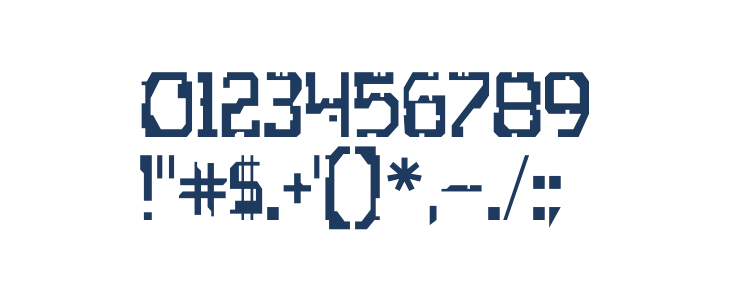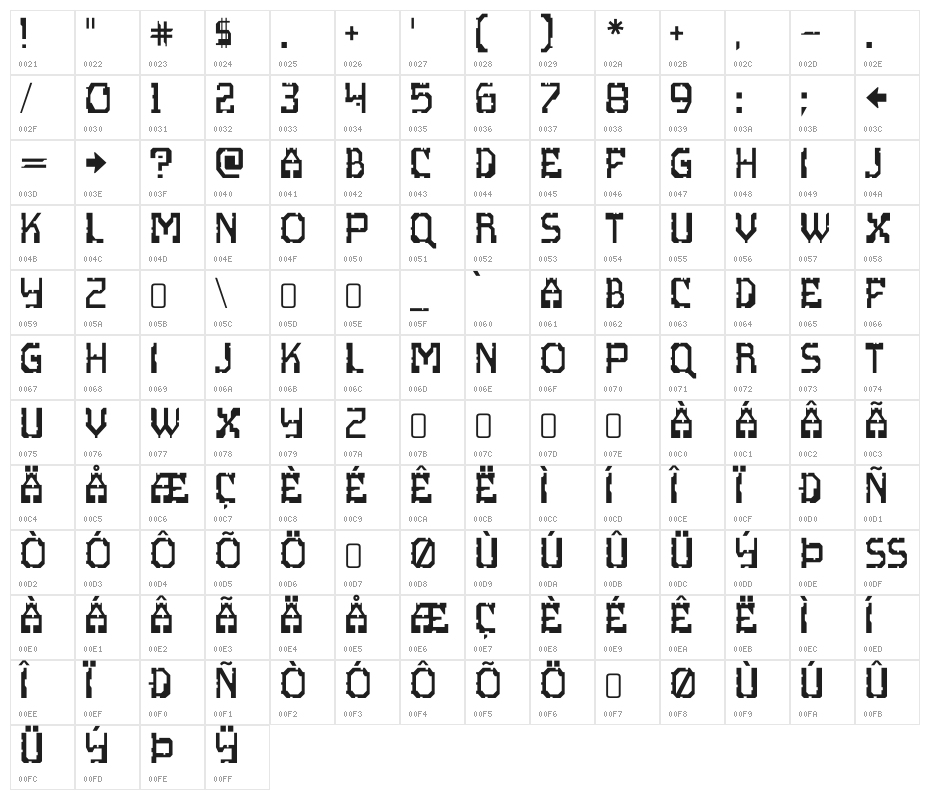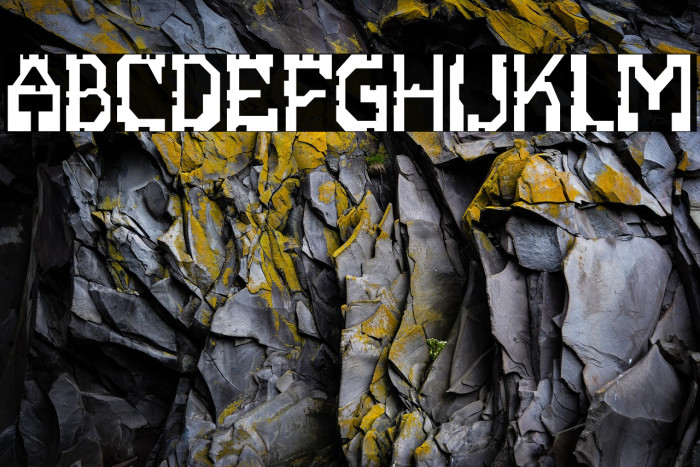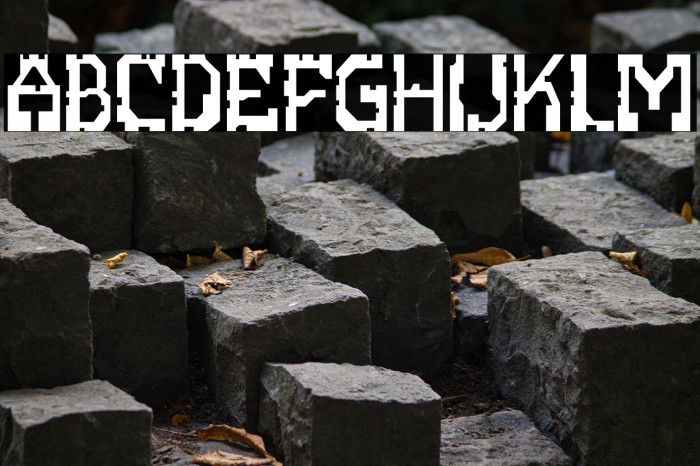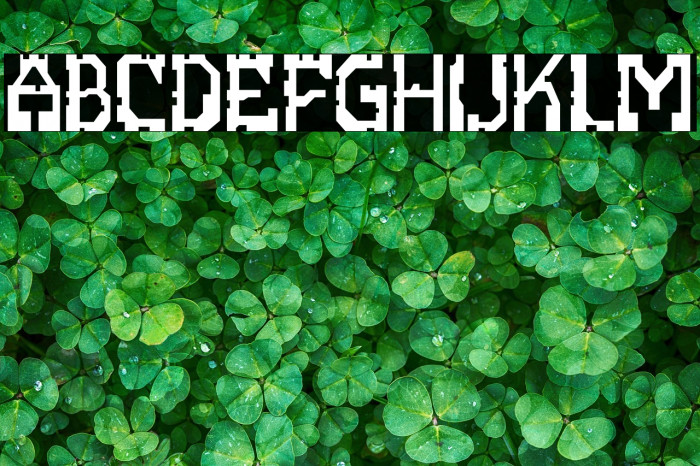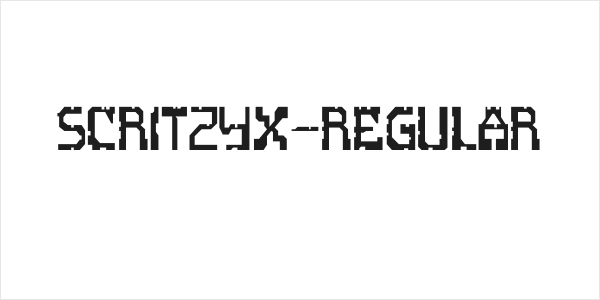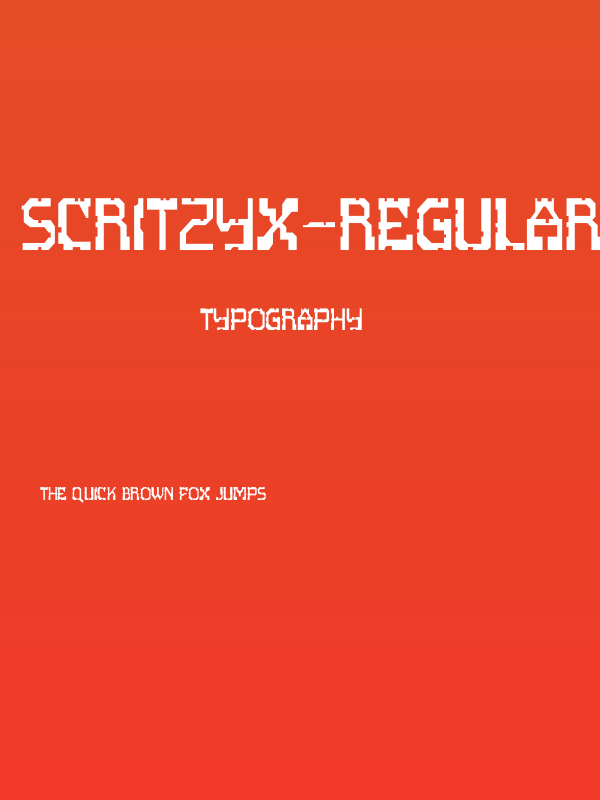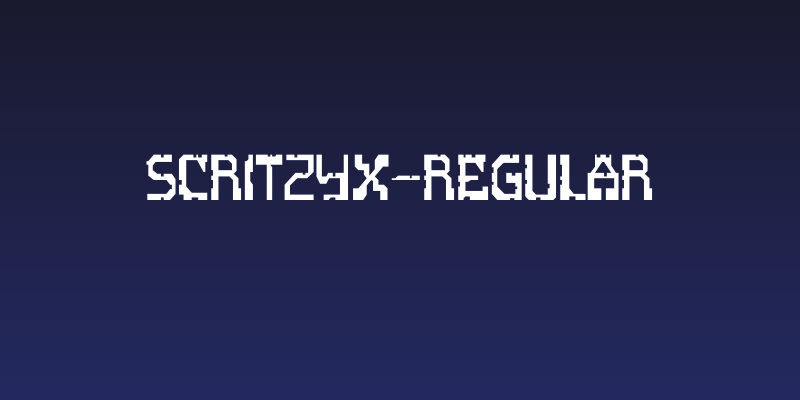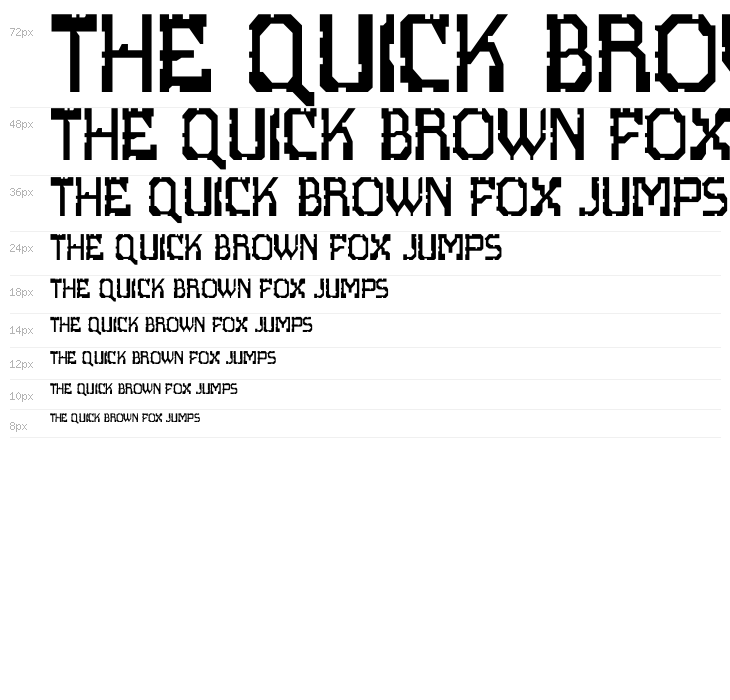
ScritzyX-Regular Font
ScritzyX-Regular Description
This font features a bold, geometric design with a pixelated, digital aesthetic. The characters are constructed with sharp, angular lines and a blocky structure, giving it a futuristic and tech-inspired look. The uppercase and lowercase letters maintain a consistent style, with uniform stroke widths and a strong presence. Numbers and special characters follow the same design principles, ensuring a cohesive appearance across all glyphs. The font's unique style makes it stand out, ideal for projects that require a modern and edgy feel.